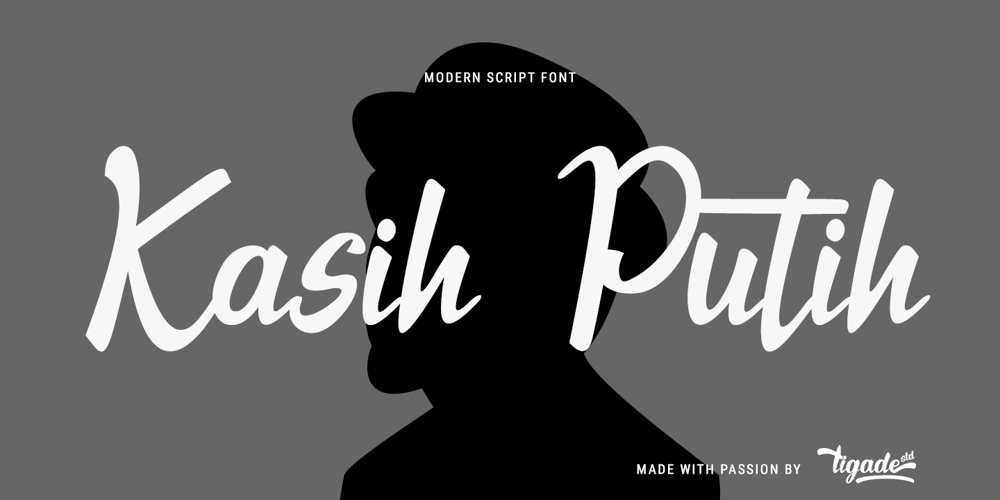
Kasih Putih Font Family was designed by Doli Harahap and published by Tigade Std. Kasih Putih contains 1 styles and family package options. Kasih Putih is a modern calligraphy font. It supports common international characters and comes with a set of alternates and ligatures. It is suitable for multiple projects from printed to digital products. It is nice to be printed on billboards, bottles or cups as well as for logos or design for apparel.